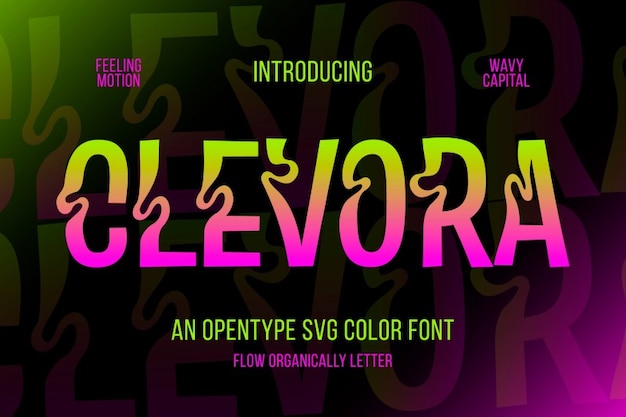
Clevora
Clevora Font
Clevora is a bold and wavy typeface with eye-catching rhythm and neon-pop attitude. Its groovy forms and electric pink color make it perfect for fun branding, energetic titles, or anything that wants to shout with playful style.